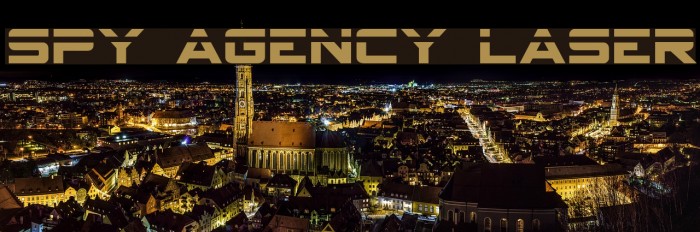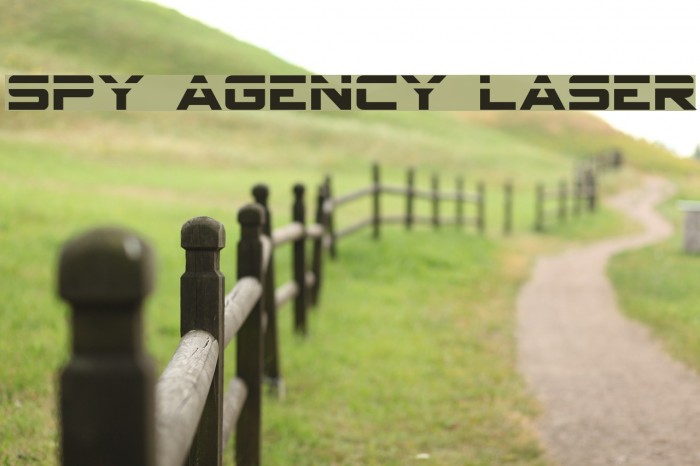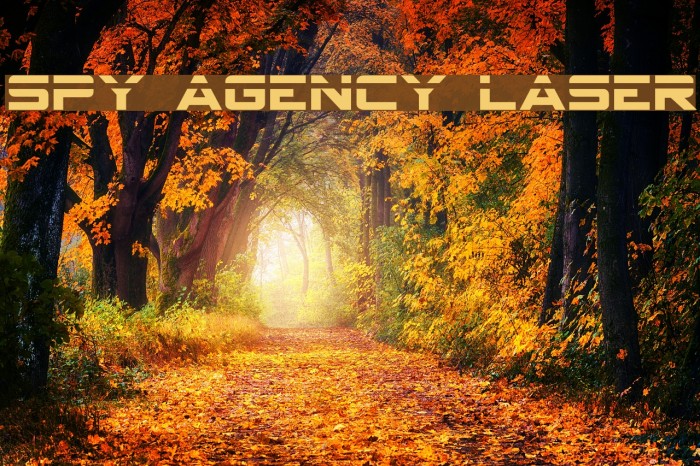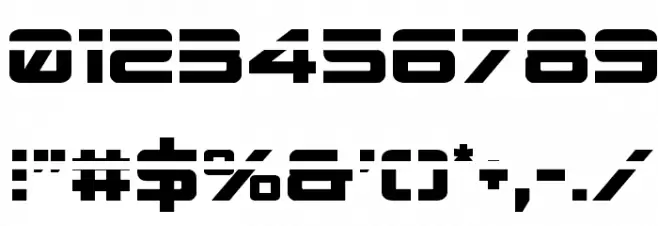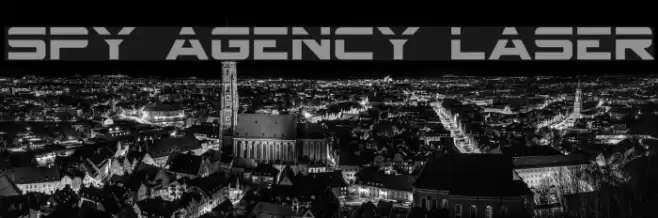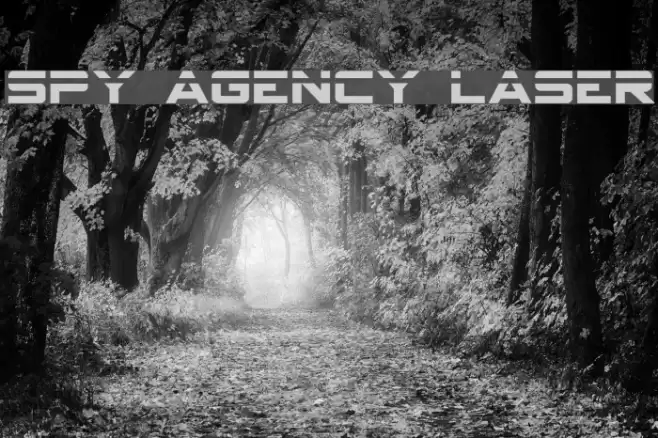
Spy Agency Laser Font
This font features a futuristic and bold design, characterized by its geometric and angular shapes. The letters are constructed with sharp edges and a consistent thickness, giving it a high-tech and modern appearance. The uppercase and lowercase letters maintain a uniform style, with the uppercase being slightly more pronounced. Numbers and special characters follow the same design principles, ensuring a cohesive look across all glyphs. The font's distinct style makes it ideal for projects that require a strong, impactful visual presence.
A futuristic, bold font with geometric and angular shapes.
- Proposed Projects: Ideal for sci-fi themed designs, technology branding, video game titles, and futuristic posters.
- Overall Style: Futuristic